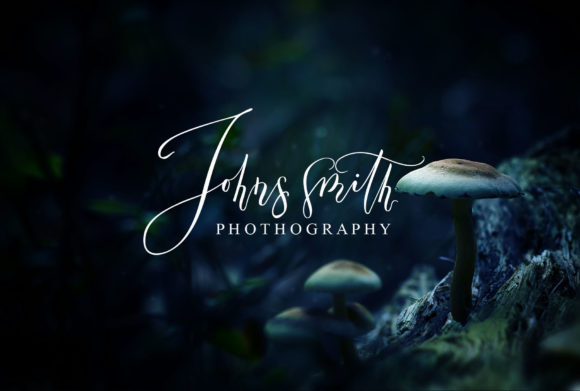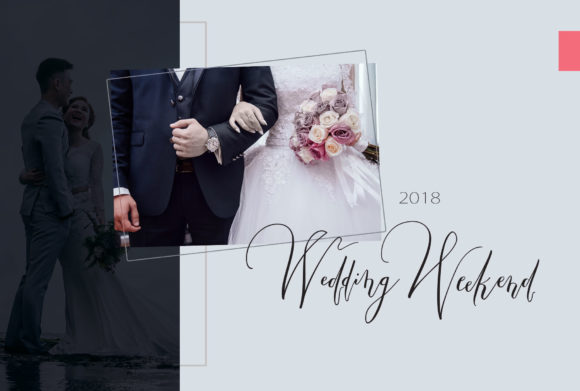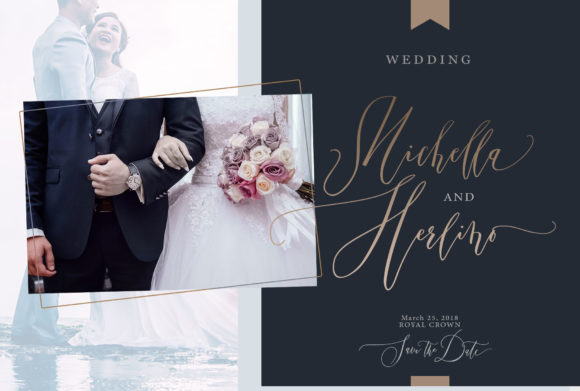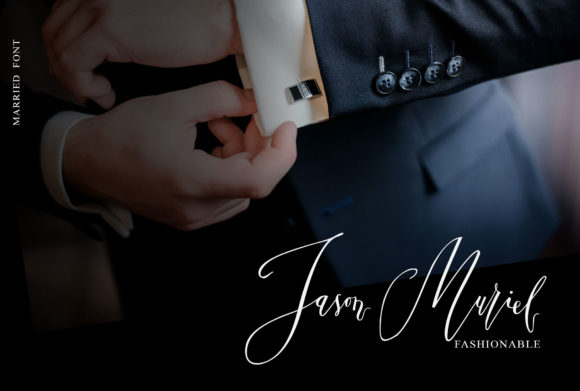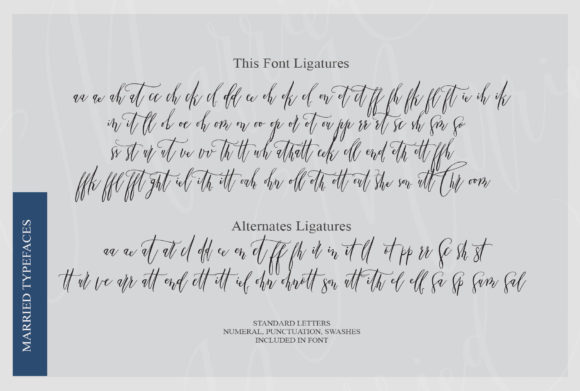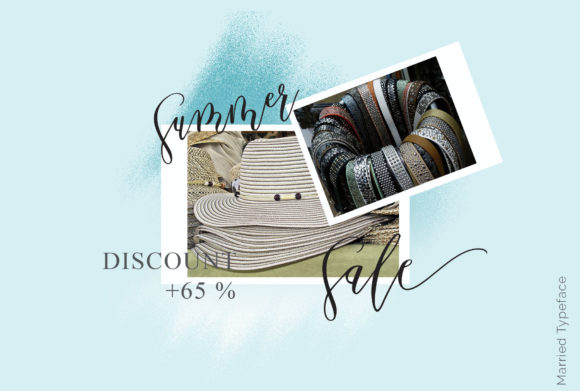
Married Font
About Married Font
Married is a modern handwritten font with a wavy calligraphy style, carefully crafted to make your text look beautiful. This font will suit many different projects: photography, watermarks, quotes, blog headers, posters, weddings, branding, logos, and so much more.